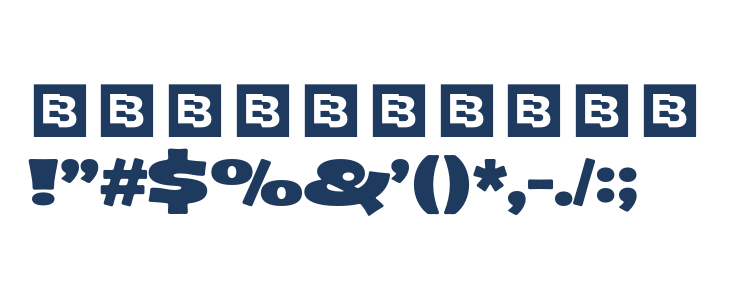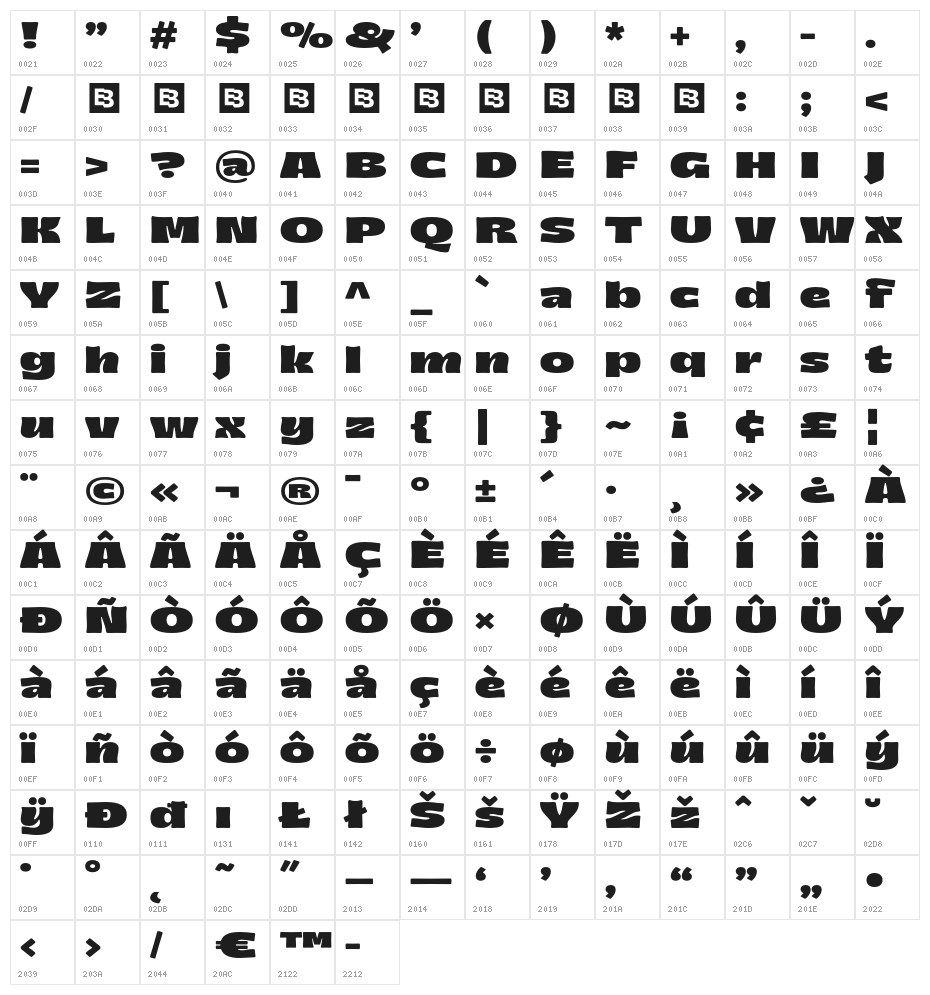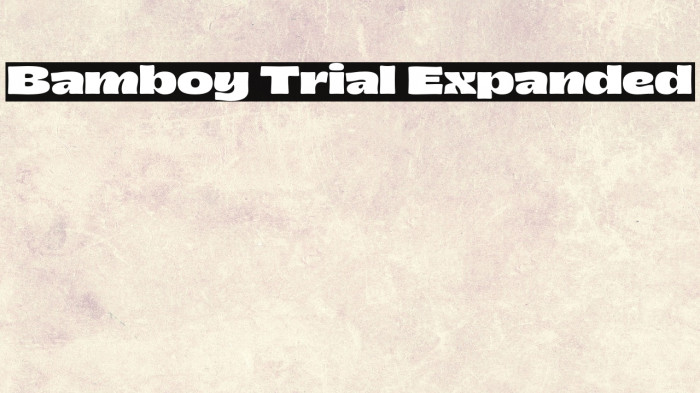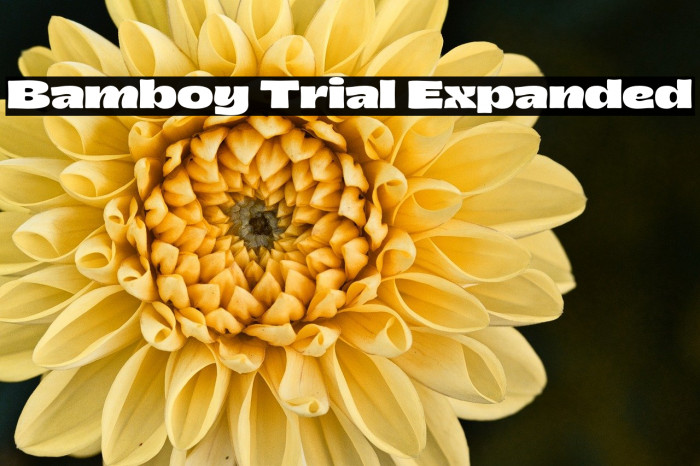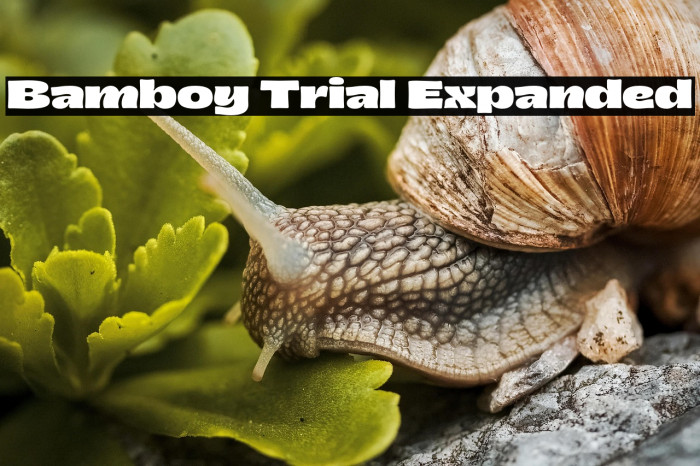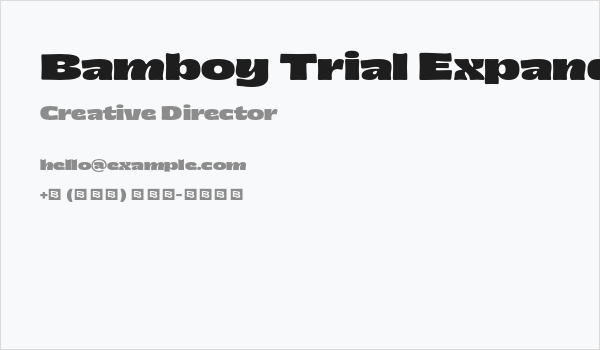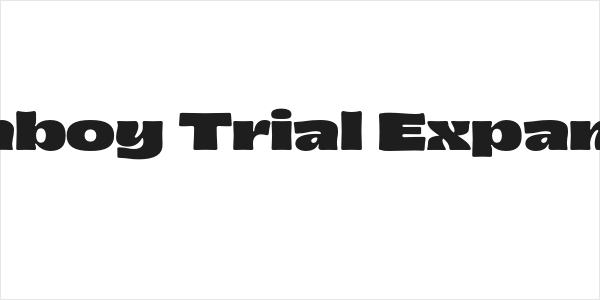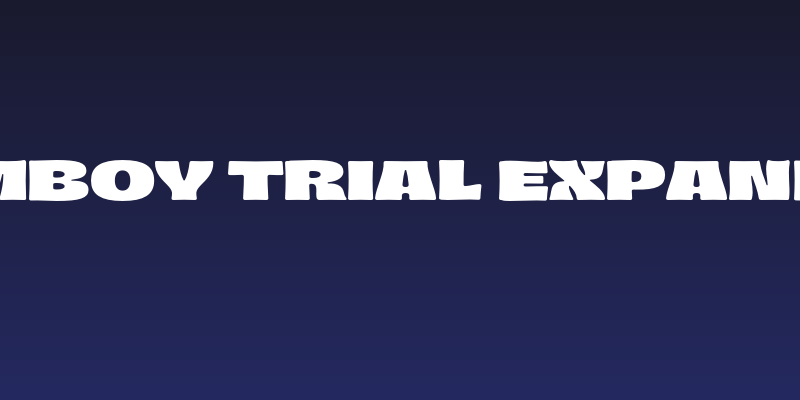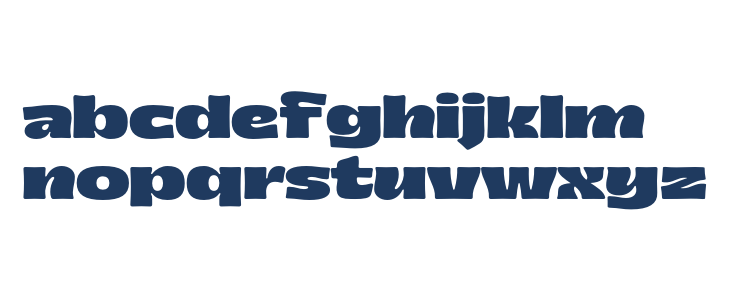
Bamboy Trial Expanded Font
Bamboy Trial Expanded Description
This font features a bold and playful design with exaggerated curves and thick strokes, giving it a strong visual presence. The letters are uniquely shaped with a slightly whimsical touch, making it stand out in any design. The uppercase and lowercase characters maintain a consistent style, with the lowercase letters slightly more rounded. The numbers and special characters follow the same bold and dynamic style, ensuring uniformity across all text elements. This font is ideal for projects that require a fun and engaging aesthetic.
| Overall Style | Playful, Bold |
| Proposed Projects | Perfect for children's books, playful branding, posters, and event invitations. |